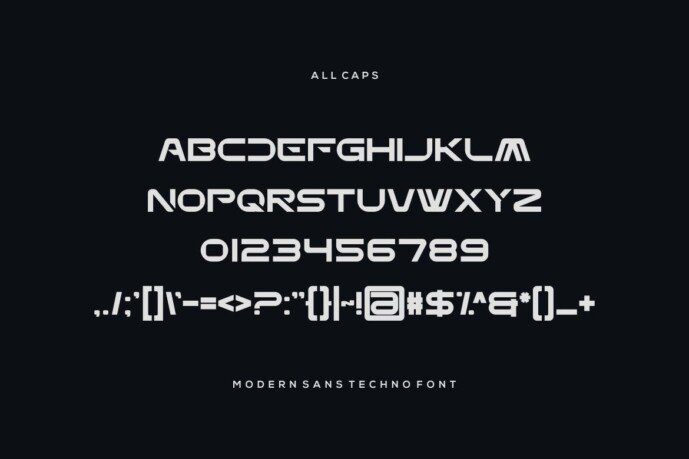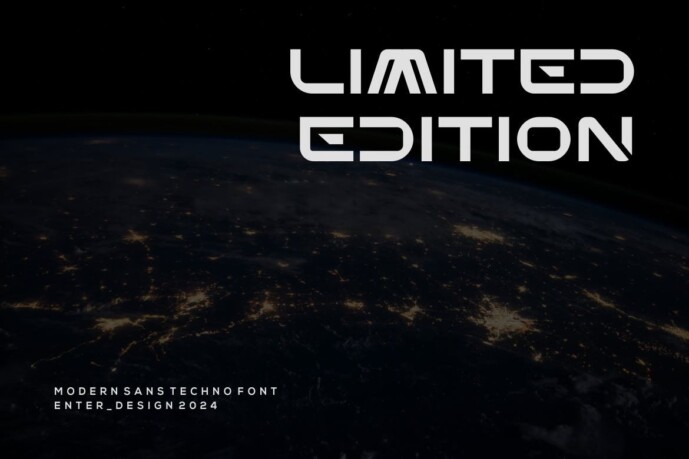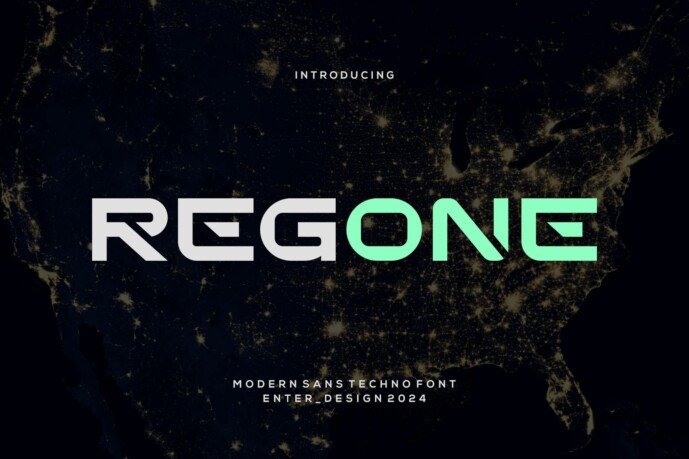
Regone Font
Designer: enter_design
Regone Font – Modern Font is a bold and authentic display font. The font is suitable for any branding projects such as Logo, esports, etc. It looks outstanding in a wide range of contexts